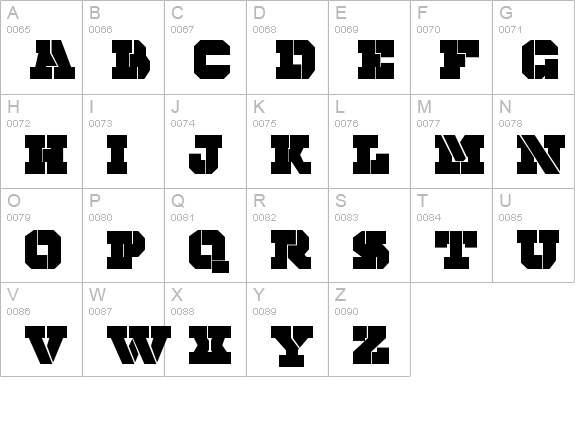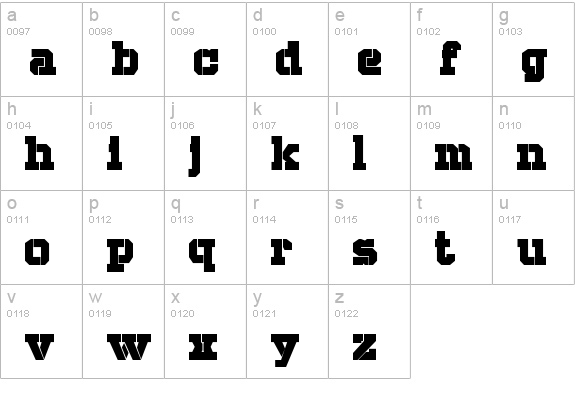
Introducing Glazer Font, a stunningly unique typeface that effortlessly captures attention and adds a touch of sophistication to any project. With its clean lines, bold strokes, and distinctive character shapes, Glazer Font stands out from the crowd and exudes a sense of modern elegance. This versatile font is perfect for a wide range of design applications, including logos, branding, packaging, headlines, and more. Its sleek and contemporary design allows it to seamlessly adapt to various styles, from minimalist and contemporary to bold and expressive. One of the most outstanding features of Glazer Font is that it is completely free! Yes, you read that right. This exceptional font is freely available to download at FontsMarket.com, allowing designers, creatives, and typography enthusiasts alike to take advantage of its captivating charm without breaking the bank. Whether you're a seasoned designer looking to elevate your projects or a beginner exploring the world of typography, Glazer Font offers a fresh and exciting approach to visual communication. Its clean and legible letterforms make it effortless to read, while its unique details and subtle flourishes add a touch of creativity and flair. Don't miss out on the opportunity to enhance your designs with Glazer Font. Download it for free today at FontsMarket.com and unlock a world of endless possibilities. Elevate your typography game and make a lasting impression with the captivating beauty of Glazer Font.